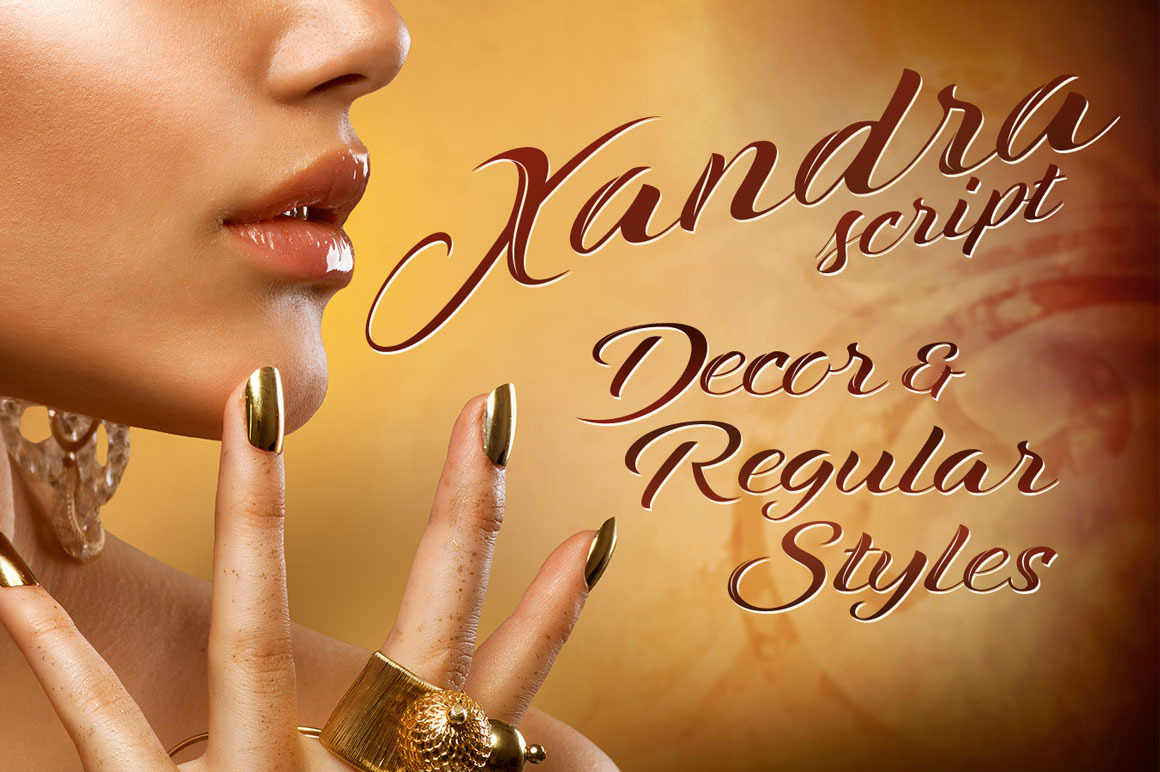
Xandra Script Font Family
Xandra Script, is a calligraphic font and timeless is soft and slightly inclined, with a marked contrasts in thickness to highlight the gesture. It can be used in different ways to create infinite title effects used commonly in poster and graphic design.